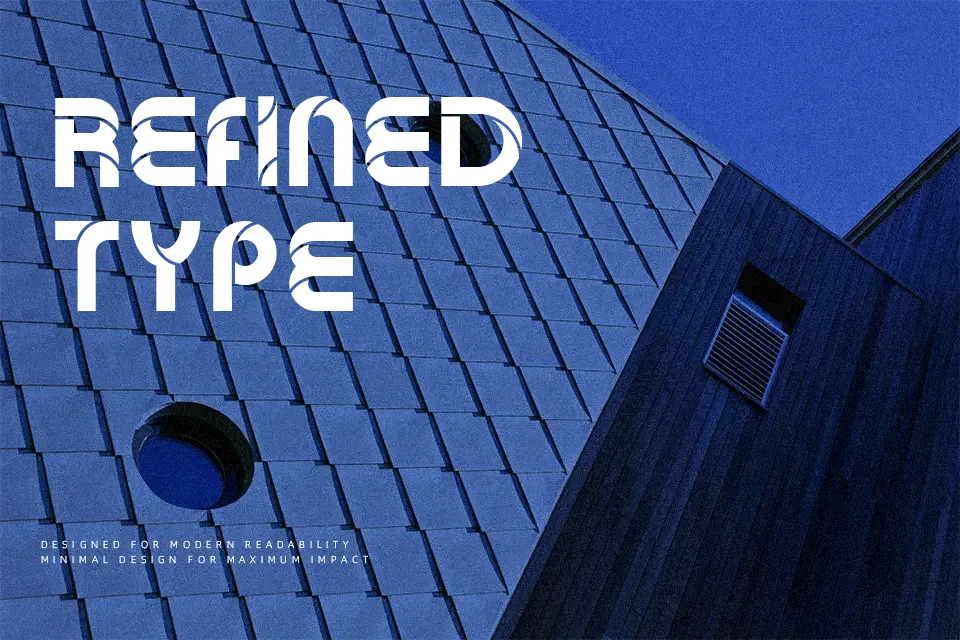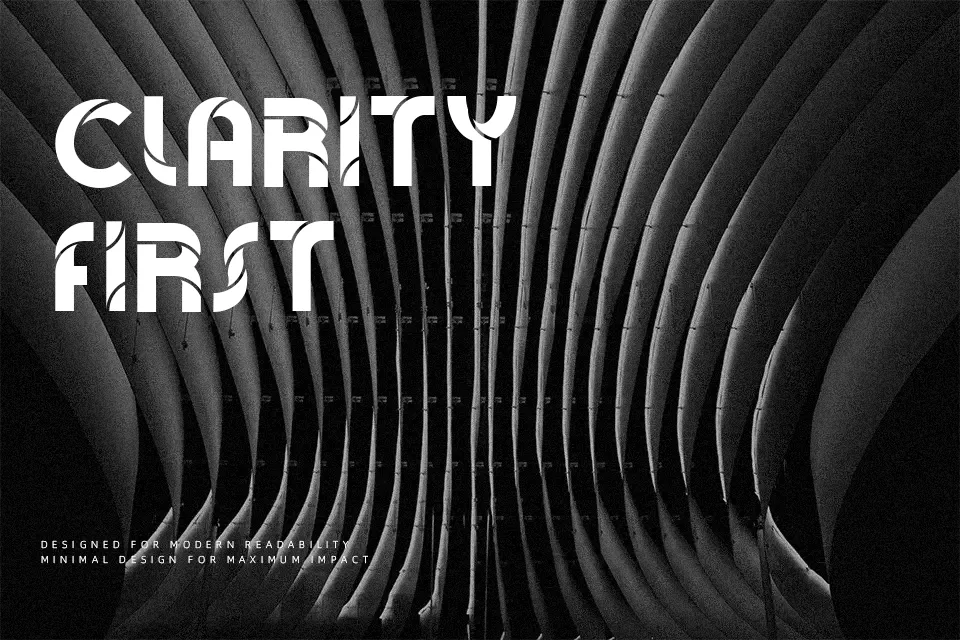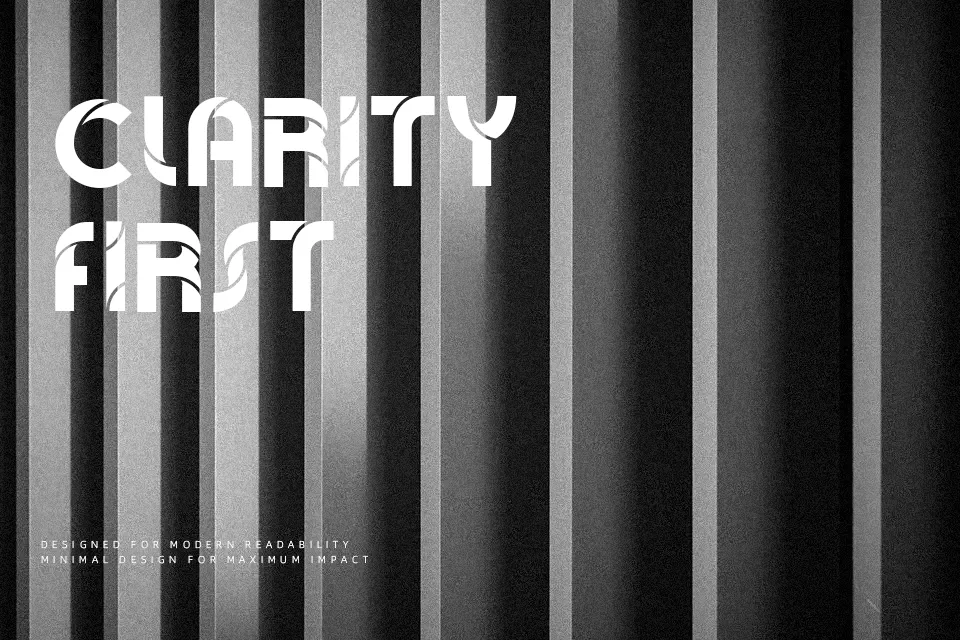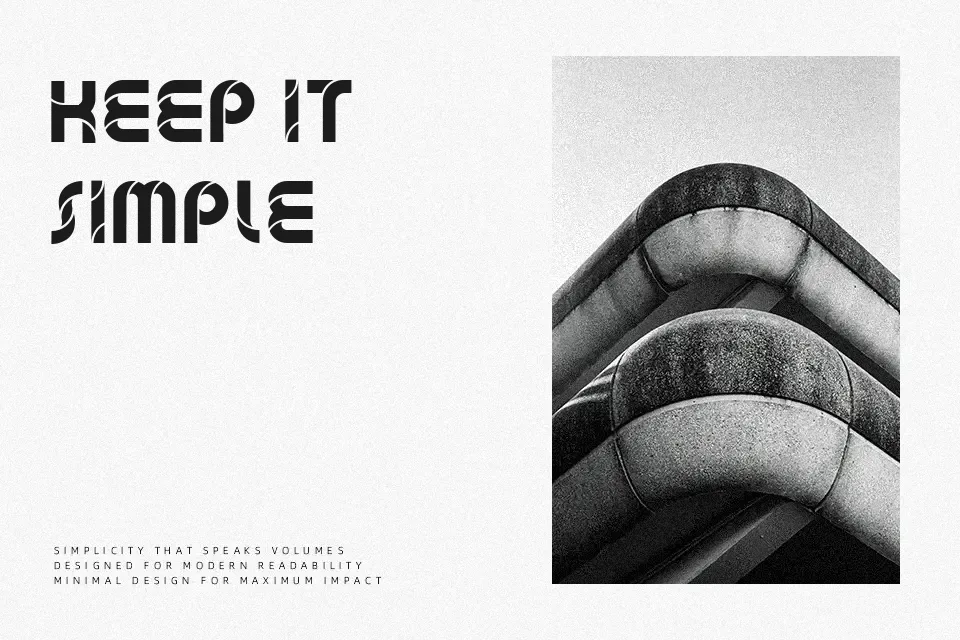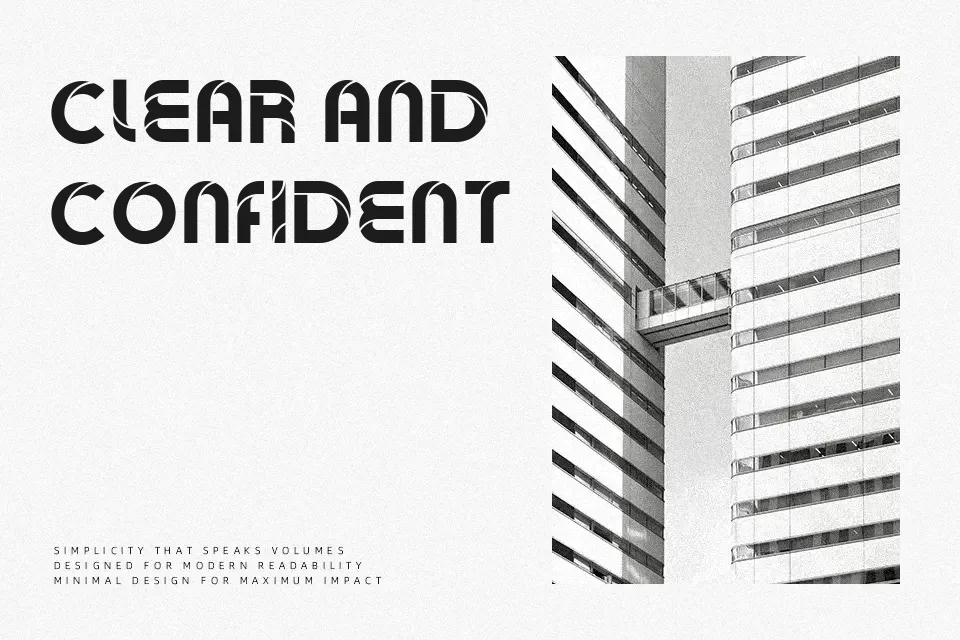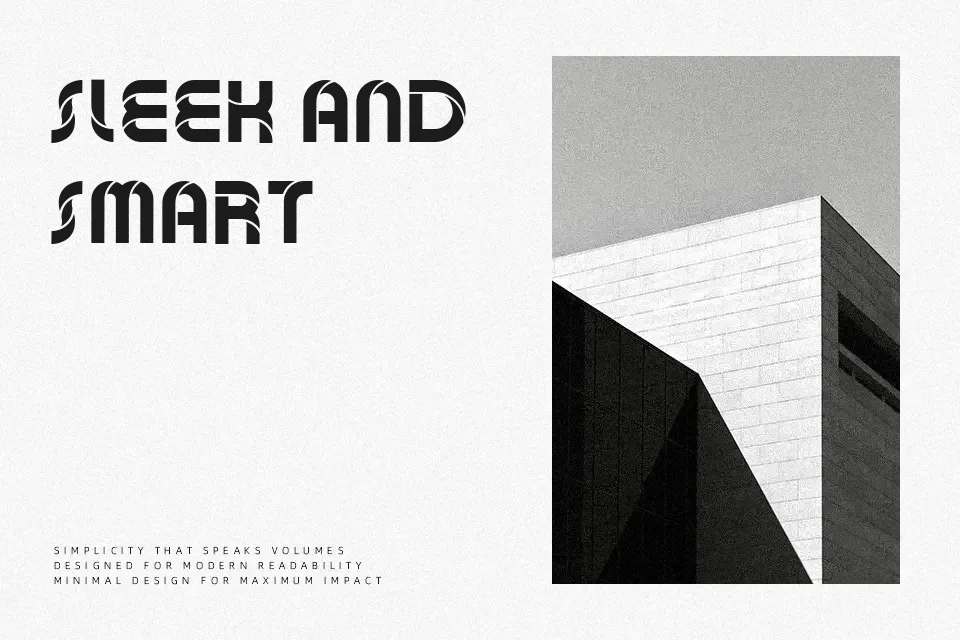
Bauman Font
Bauman leans on geometric construction, with monoline strokes, tall x-height, and short ascenders and descenders that create a compact, visually solid line of text. Sharp angles in letters like M, V, and W and a distinctive curved Z give it a slightly industrial, tech-leaning character, while the spacing stays open enough for clear reading at display sizes. This sans serif display style feels modern rather than decorative, so it suits product landing page headers, app dashboards, posters, and logo wordmarks that aim for a clean, engineered look. It struggles in long paragraphs or very small sizes, where the geometric shapes can feel stiff and fatiguing. Used thoughtfully in short, high-impact lines, it performs reliably; pushed into dense body copy, it quickly loses comfort and nuance.
tech startup landing page headlines
UI dashboard section titles
event posters and banners
modern logo wordmarks
long paragraph text and articles
formal print reports or books
very small UI labels or captions
projects needing a warm, humanist feel
Perfect for branding, headline, and logo, with a clean and display style.